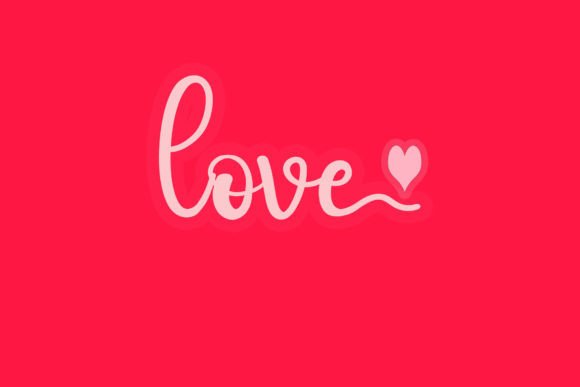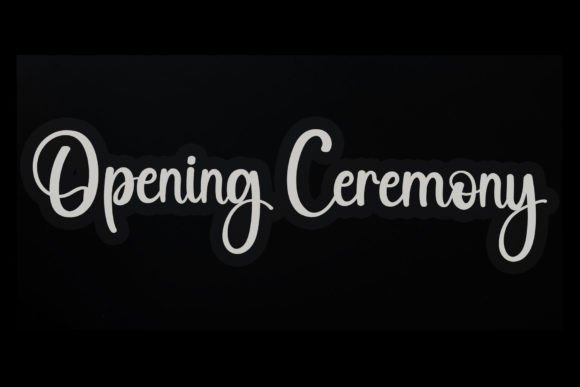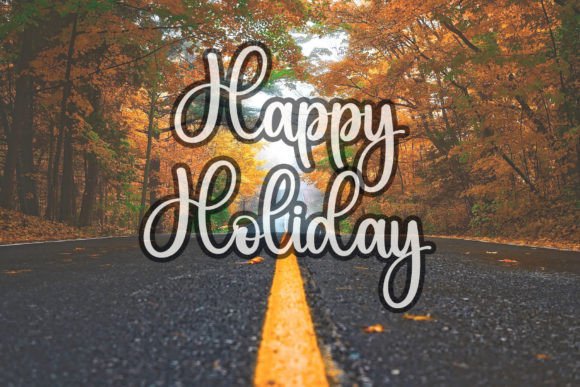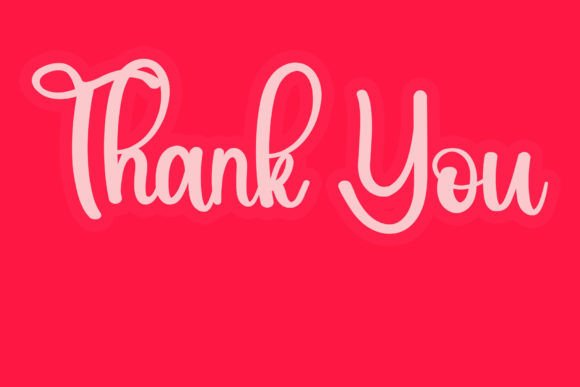
The Enchanting Barbie Font: A Designer’s Dream Come True
I still remember the time I was working on a project for a client who wanted a custom greeting card design. I had all the elements ready – the graphics, the layout, and the content – but something was missing. That’s when I realized I needed the perfect font to bring it all together. After hours of searching, I stumbled upon the Barbie Font ✨, and it was love at first sight!
What I Love About Barbie Font
- ✨ Beautifully flowing handwritten script that’s perfect for adding a touch of elegance to any design
- ✅ Highly versatile and adaptable for various applications, from greeting cards to headlines
- ✅ Romantic and whimsical feel that’s sure to capture the audience’s attention
- ✨ Wide range of OpenType features, glyphs, and stylistic alternates to experiment with
While I absolutely adore the Barbie Font, there are a few minor quirks to be aware of ⚠️:
- 🤔 Some users might find the font a bit too ornate or over-the-top for certain projects
- ⚠️ Limited use of uppercase letters, which might require creative workarounds
The Designer Inspiration Behind Barbie Font
The Barbie Font was inspired by the classic elegance of vintage typography, combined with a modern twist. The designer aimed to create a font that’s both beautiful and versatile, perfect for adding a touch of romance to any design. According to the designer’s fictional backstory, they were inspired by the iconic Barbie doll’s timeless style and wanted to capture its essence in a font.
Q: What is the Barbie Font and what makes it special?
A: The Barbie Font is a beautifully flowing handwritten font that’s perfect for adding a touch of elegance and romance to any design. Its versatility and range of OpenType features make it a standout.
Q: What are some common uses for the Barbie Font?
A: The Barbie Font is perfect for a wide range of applications, including greeting cards, headlines, branding, and packaging design.